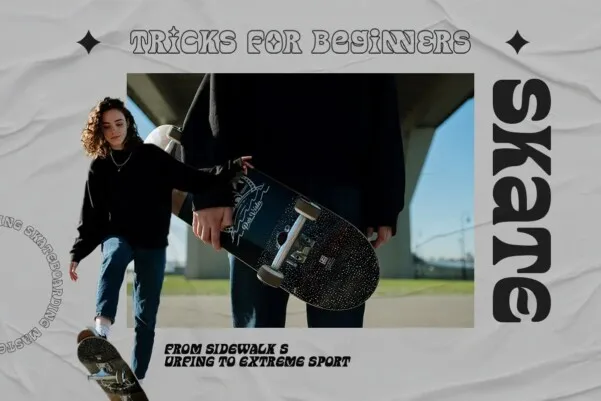
Starboy Font
Starboy Font – The Hottest Bold Serif Display Font of the Moment!
Starboy is here to redefine your design game with a boldness that’s right on-trend. This dynamic font duo features both a regular and outline version, making it the ultimate choice for designers who want to stay ahead of the curve in today’s design scene.
The regular version of Starboy is a powerhouse of bold serifs and stylish sophistication, perfect for creating designs that make a bold statement. The outline version takes this to the next level, adding an extra layer of modernity and versatility to your projects.
In a design world that’s constantly evolving, Starboy stands out as the go-to font for capturing attention and creating memorable visuals. Whether you’re working on cutting-edge branding, striking headlines, or contemporary packaging, Starboy’s duo of fonts ensures your work aligns with the latest design trends.